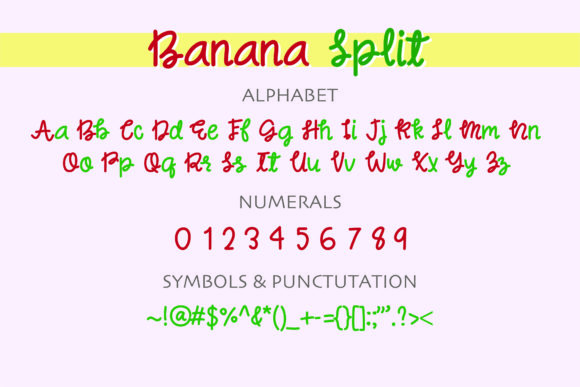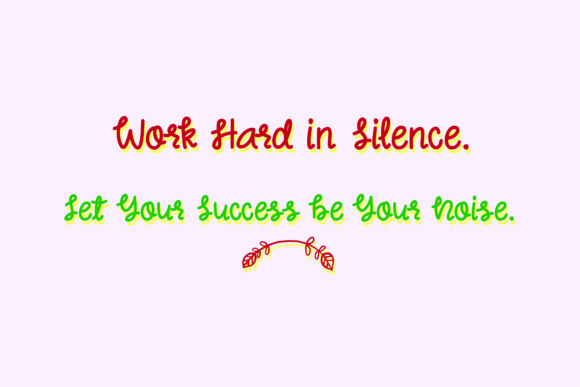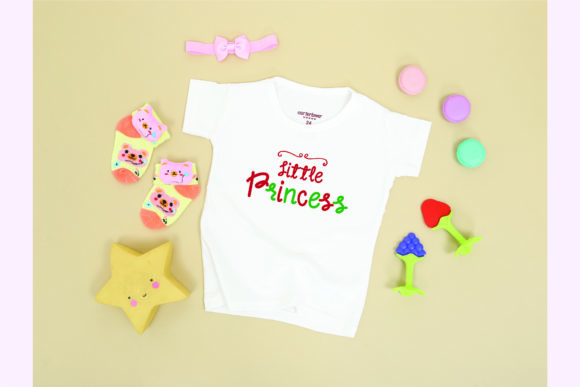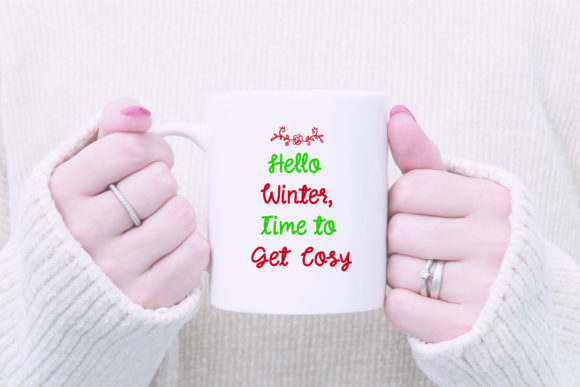
Introducing Banana Split Font: The Sweetest Addition to Your Design Toolbox
Are you on the hunt for a font that’s as sweet as it is versatile? Look no further than Banana Split Font, a charming handwritten font that’s perfect for adding a touch of whimsy to your designs. Whether you’re creating cartoon characters, designing games for kids, or simply looking for a lovely font to add some personality to your project, Banana Split Font is an amazing choice.
The Characteristics of Banana Split Font
Banana Split Font is a cute and quirky handwritten font that’s sure to capture the hearts of designers and crafters alike. Its unique characteristics include:
• Handwritten charm: Banana Split Font has a distinctly handwritten feel that’s perfect for adding a personal touch to your designs.
• Cute and quirky: This font is playful, fun, and full of personality – making it perfect for designs that need a bit of whimsy.
• Versatile: Whether you’re designing for kids or adults, Banana Split Font is versatile enough to be used in a wide range of projects.
Uses for Banana Split Font
So, what can you use Banana Split Font for? The possibilities are endless! Here are a few ideas to get you started:
• Cartoon and animation projects: Banana Split Font is a natural fit for cartoon and animation projects, where its playful and quirky personality can really shine.
• Children’s games and educational materials: This font is perfect for designing games, worksheets, and other educational materials for kids.
• Crafting and DIY projects: Banana Split Font is also great for crafting and DIY projects, such as making signs, banners, and other decorative items.
• Digital and print designs: Use Banana Split Font in digital designs, such as social media graphics, or in print designs, like posters, flyers, and brochures.
Why Choose Banana Split Font?
So, why should you choose Banana Split Font for your next project? Here are just a few reasons:
• Unique and eye-catching: Banana Split Font is a one-of-a-kind font that’s sure to grab attention and make your designs stand out.
• Easy to read: Despite its playful personality, Banana Split Font is easy to read and understand, making it perfect for designs that need to communicate a message.
• Customizable: Banana Split Font can be customized to fit your project’s specific needs, so you can make it your own.
Tips for Using Banana Split Font
Here are a few tips for using Banana Split Font in your designs:
• Pair it with other fonts: Banana Split Font pairs well with other fonts, so don’t be afraid to experiment with different combinations.
• Use it in moderation: While Banana Split Font is cute and playful, it can be overwhelming if used too much. Use it in moderation to create visual interest.
• Experiment with colors and textures: Banana Split Font looks great in a variety of colors and textures, so don’t be afraid to get creative!
Font Name Banana Split Font
Author GoodMoodType
In conclusion, Banana Split Font is a sweet and versatile font that’s perfect for adding a touch of whimsy to your designs. Its unique characteristics, versatility, and ease of use make it an excellent choice for designers and crafters of all levels. Whether you’re creating cartoon characters, designing games for kids, or simply looking for a lovely font to add some personality to your project, Banana Split Font is sure to be a hit. So why wait? Download Banana Split Font today and start creating your own sweet designs!